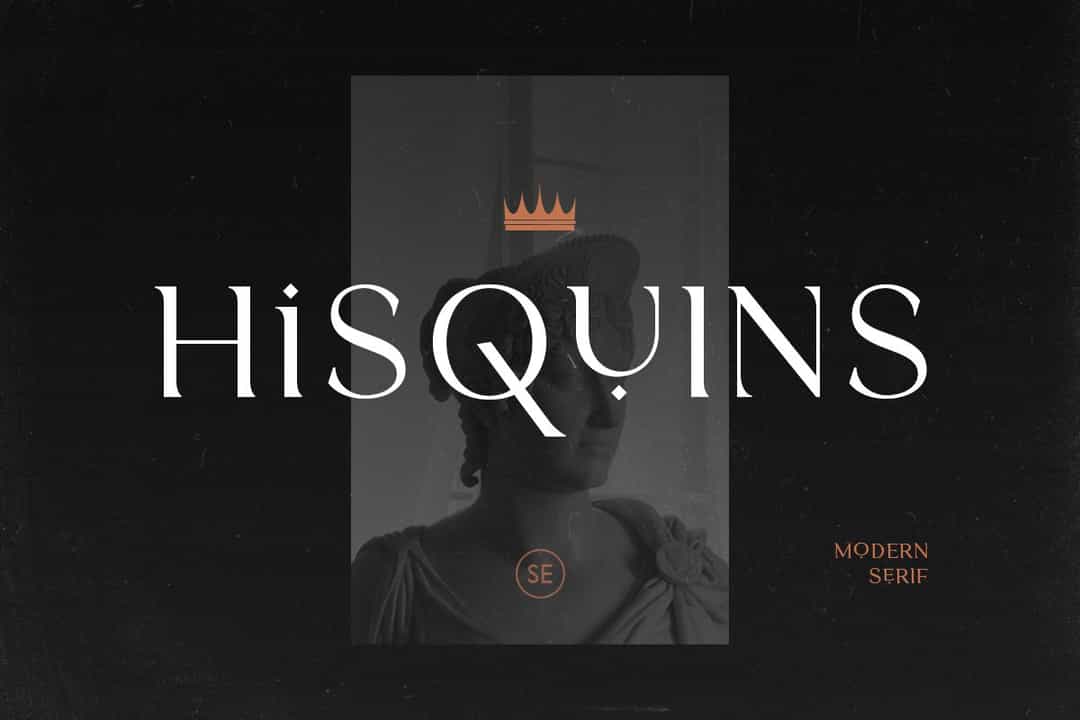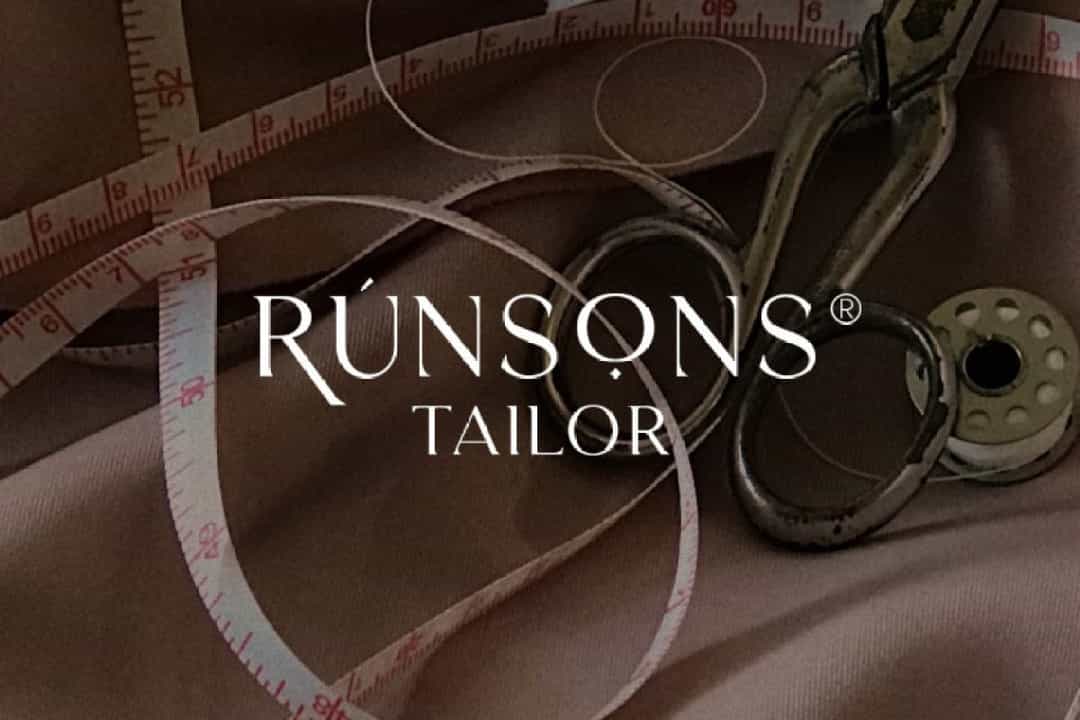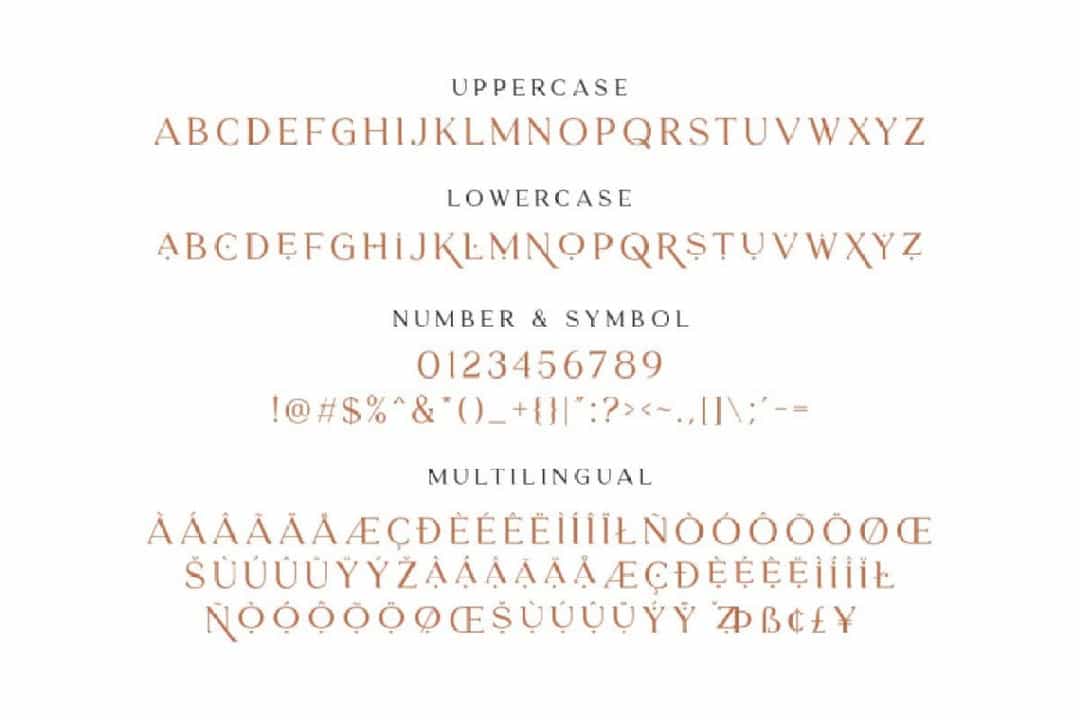
Hisquins is a serif-based font with distinctive lowercase and uppercase letters to ensure your design appears minimalist and modern. Perfect for logotypes and branding efforts.